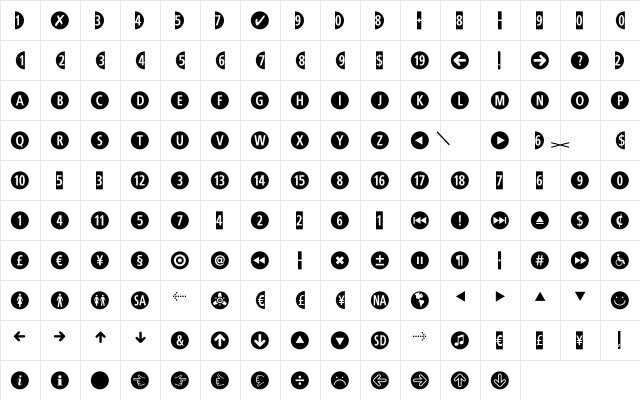
CombiNumerals Pro Bold
| Designer | Sean Cavanaugh |
Design Context for CombiNumerals Pro Typeface
CombiNumerals Pro takes a measured approach to typography — its balanced proportions and neutral character make it a reliable workhorse for both digital and print work. The heavy weight commands attention and anchors typographic hierarchies.